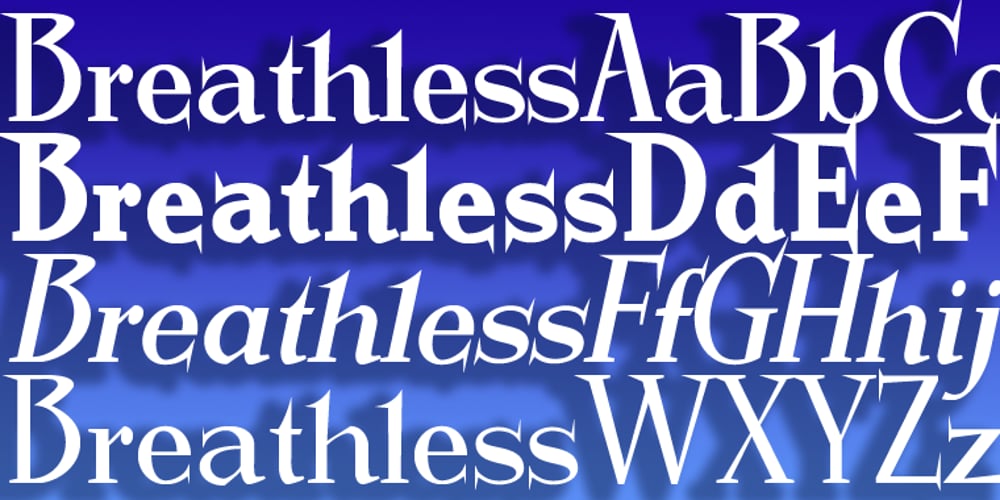
Breathless Font Family was designed by Gert Wiescher and published by Wiescher Design. Breathless contains 4 styles and family package options. Breathless was inspired by movie posters of the Nouvelle Vague era when Jean Seberg and Jean-Paul Belmondo were young and films where in black and white. So I named this very spiky affair after that phantastic movie of my youth A bout des souffle or like it was called in English, Breathless. -Your breathless type designer, Gert Wiescher